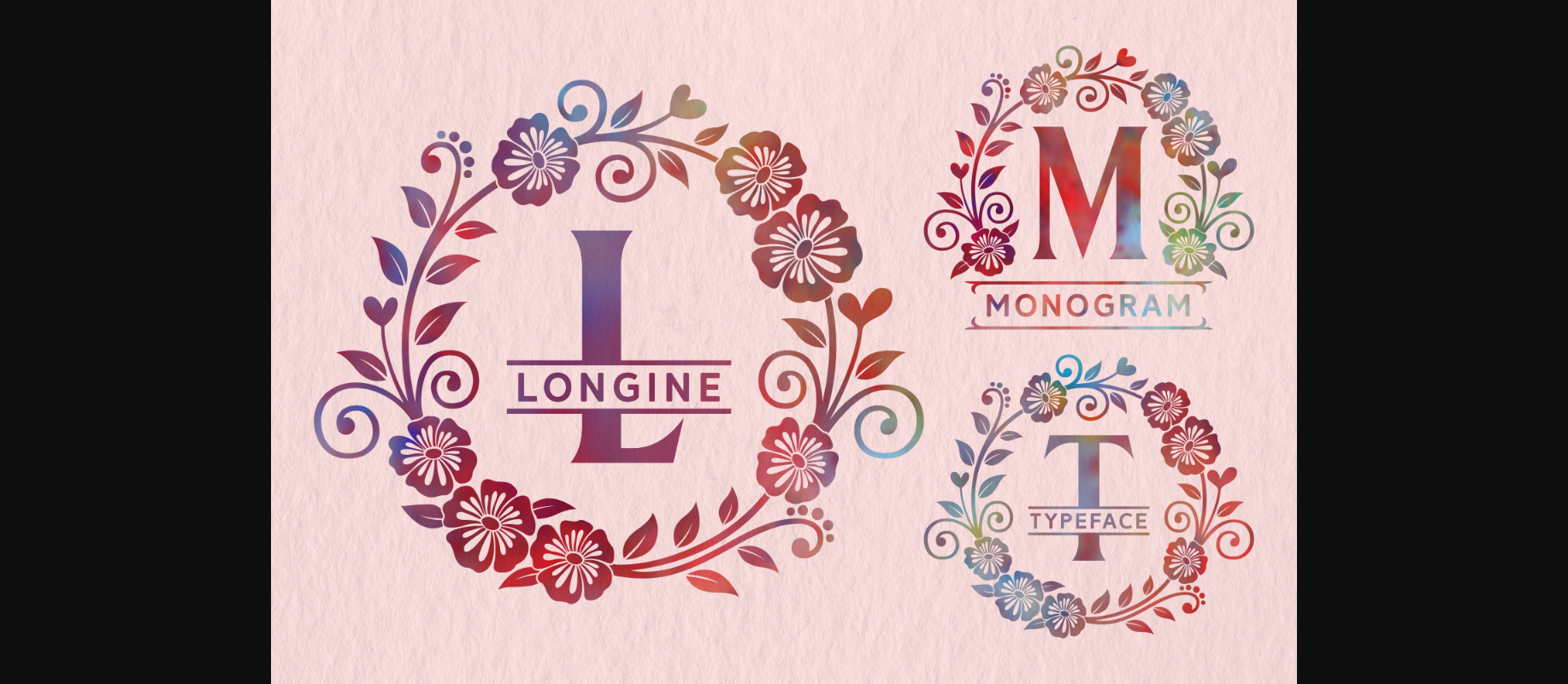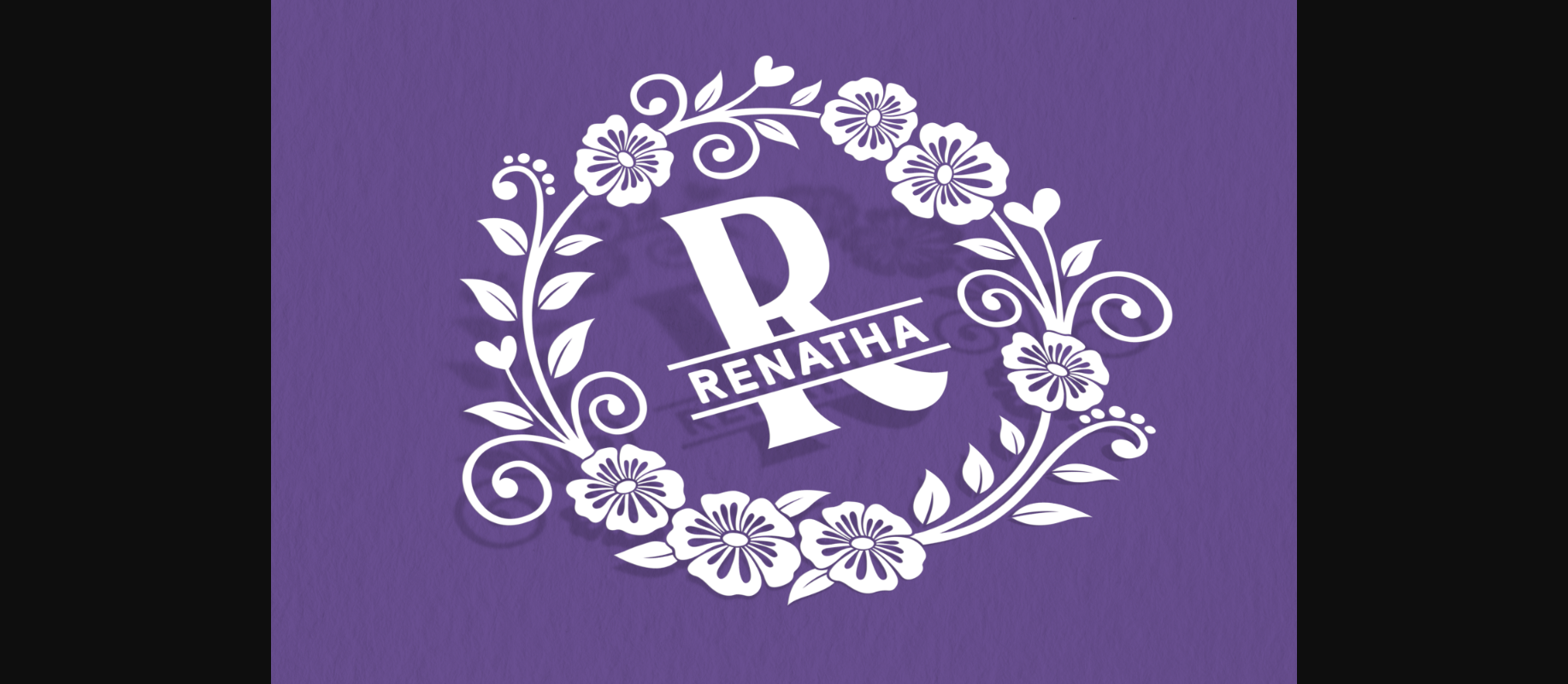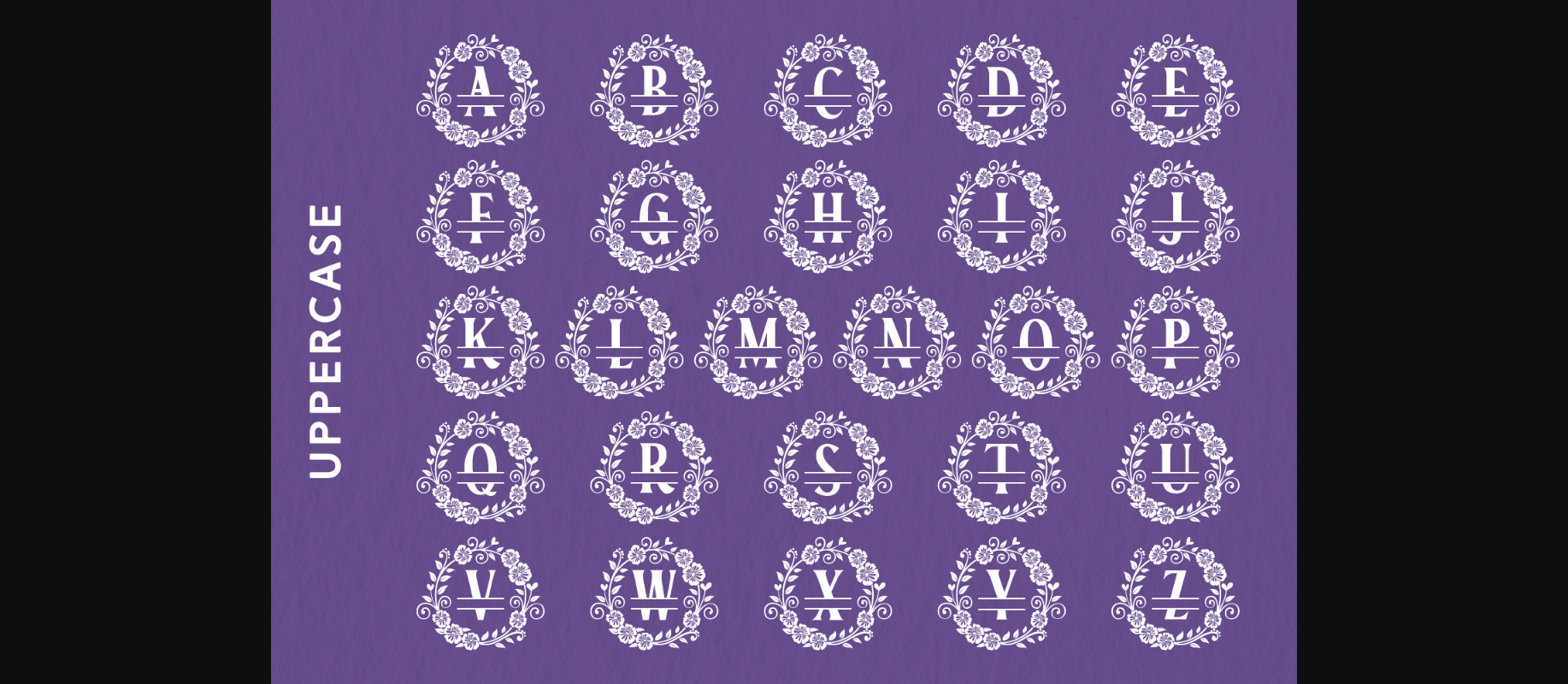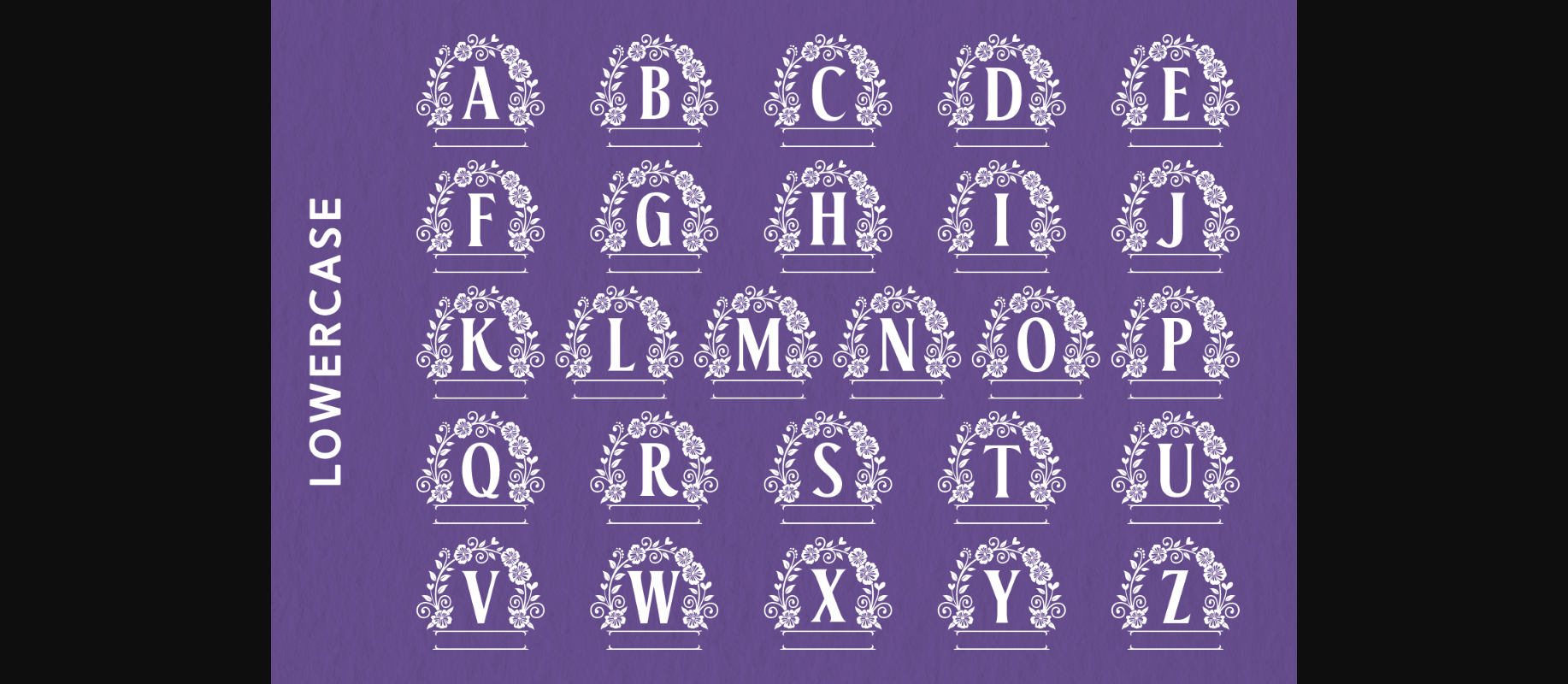
Longine is a frail and smooth decorative font. Fall for its ravishing style and use it to create gorgeous wedding invitations, beautiful stationary art, eye-catching social media posts, and much more!